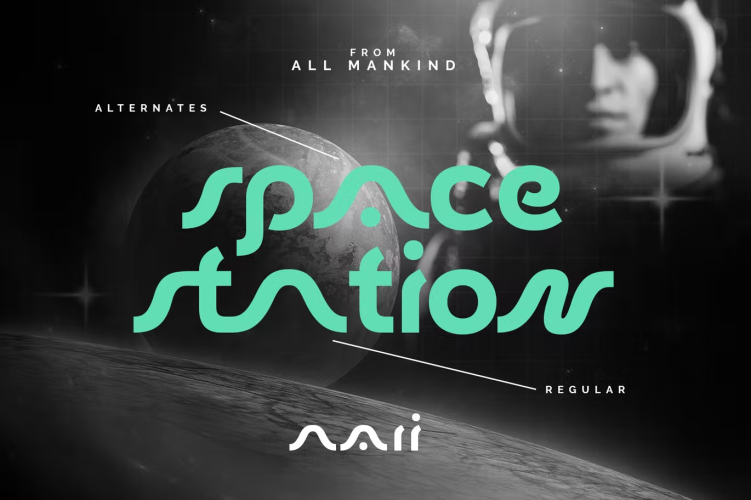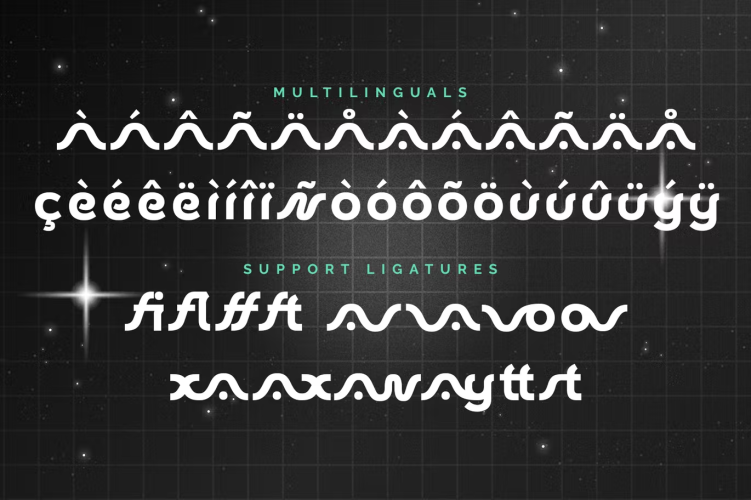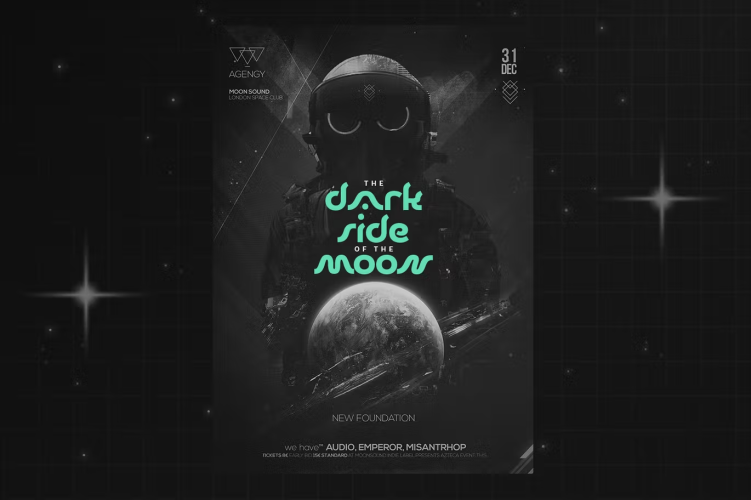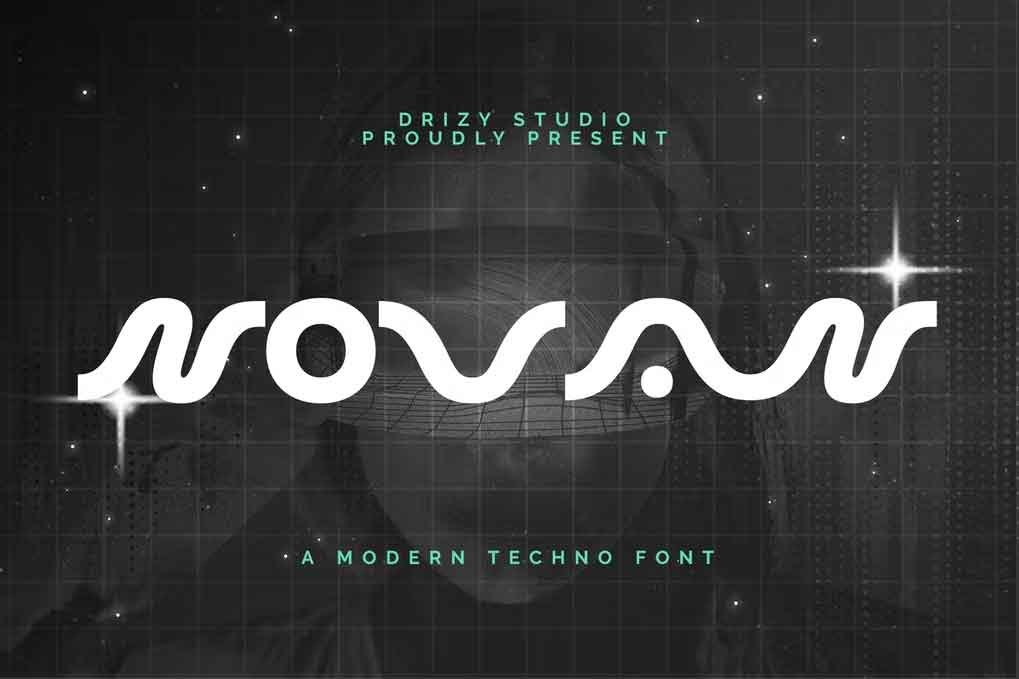
Novan Font
Introducing Novan!! a modern techno display font with multilingual support. Novan is great for creating eye-catching headlines, logo, applicable for any type of graphic…
Introducing Novan!! a modern techno display font with multilingual support. Novan is great for creating eye-catching headlines, logo, applicable for any type of graphic design web, print, motion graphics, perfect for t-shirts and other items.
Where Novan Font works best
Event & seasonal design
Novan Font suits themed posters, holiday campaigns, festival identities and party invitations.
Game & entertainment titles
Decorative letterforms are a natural fit for game logos, movie-style titles and merch.
Packaging accents
Use Novan Font sparingly for product names or flavour labels that need personality.
What is Novan Font good for?
Novan Font is a Decorative Fonts typeface tagged Branding, Decorative, Decorative Fonts, Display. It works well for headlines, logos, posters, social media graphics and branding projects that need a distinctive decorative fonts look.